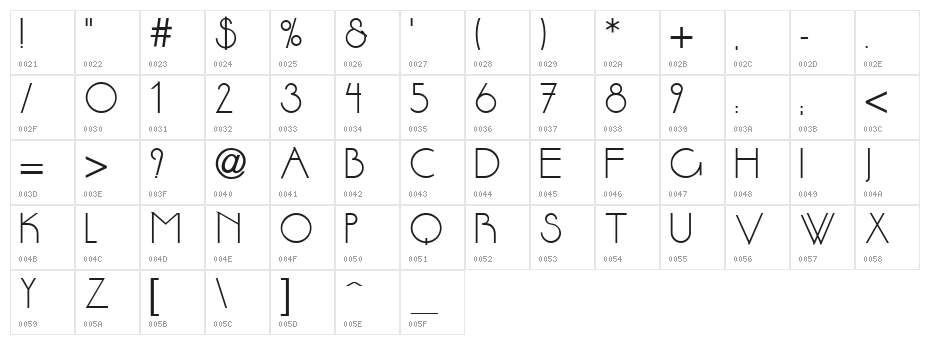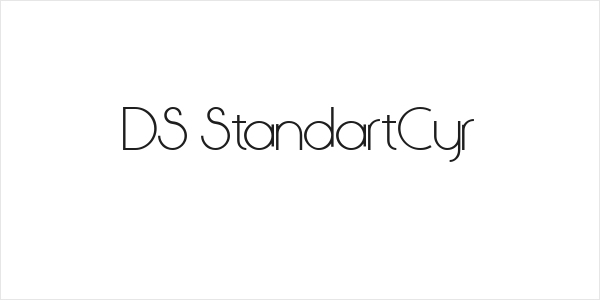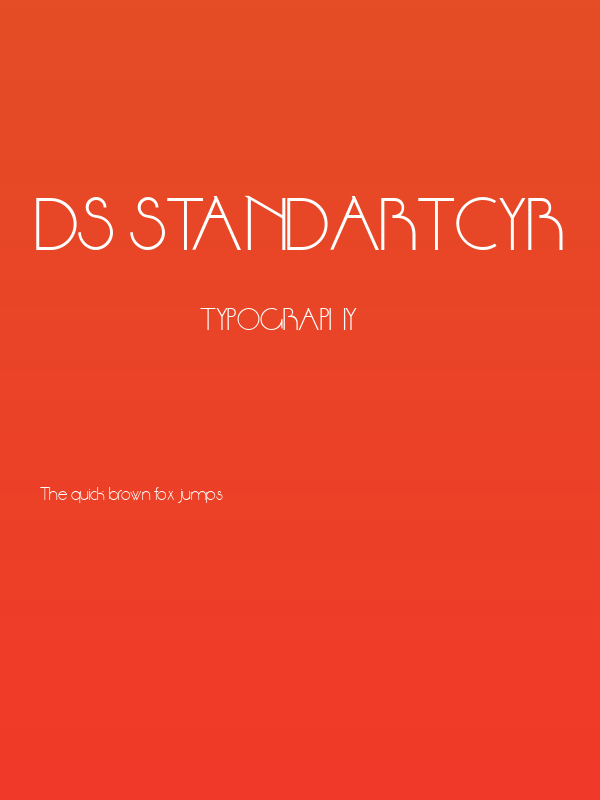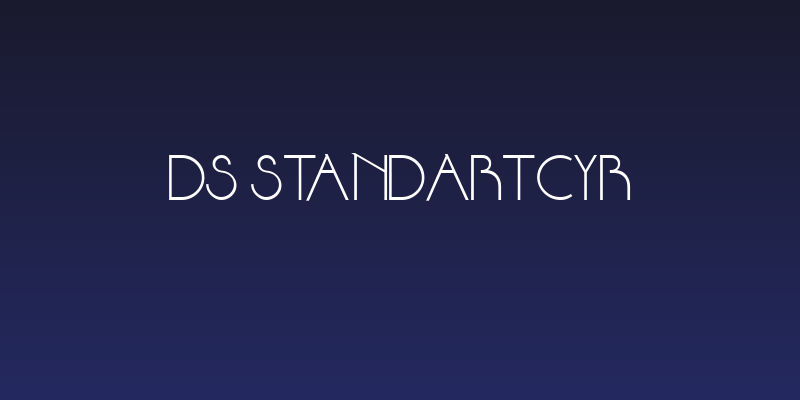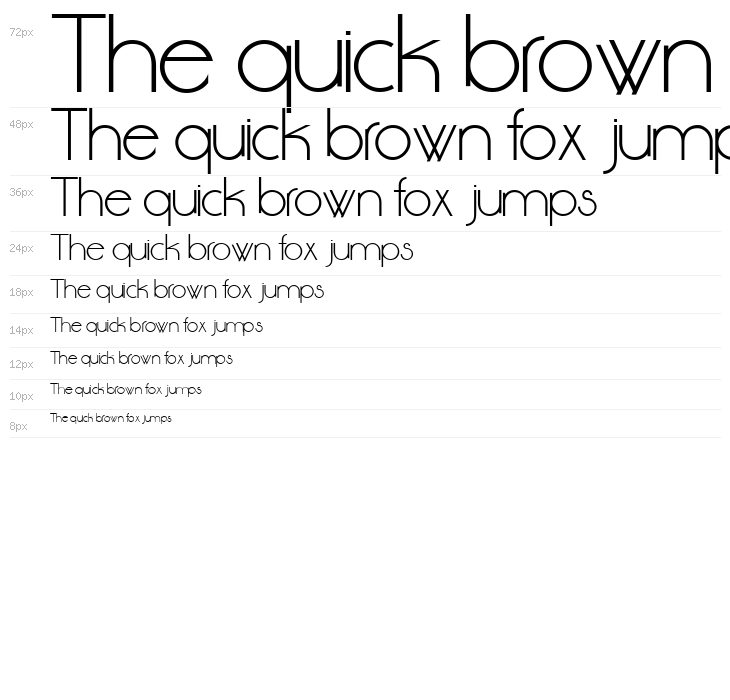
DS StandartCyr Font
DS StandartCyr Description
This typeface features a sleek, geometric design with a modern aesthetic. The characters are composed of clean, straight lines and smooth curves, creating a minimalist and contemporary look. The uppercase letters are tall and elegant, while the lowercase letters maintain a consistent style with a slightly more rounded appearance. The numerals and special characters follow the same design principles, ensuring uniformity across the font. Its simplicity and clarity make it highly readable, suitable for various design applications.
| Use Case | Headlines, Logos, Digital interfaces |
| Proposed Projects | Ideal for branding, advertising, editorial design, and digital interfaces where a modern and clean look is desired. |